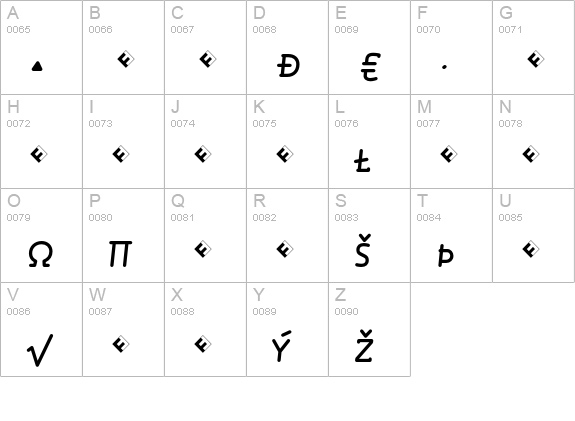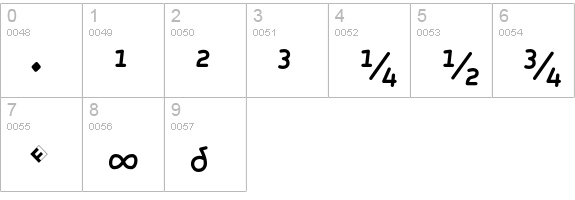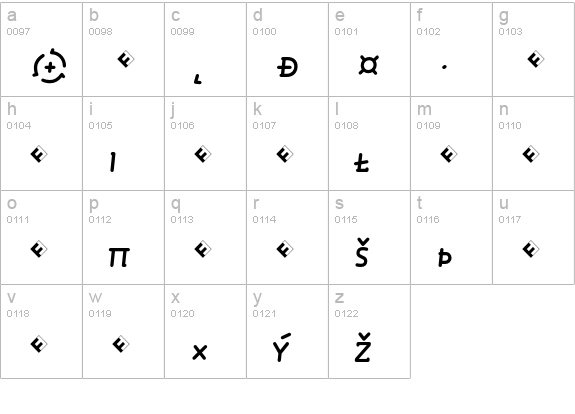
Roice-MediumItalicSCExpert is a sophisticated and elegant font that exudes a sense of refinement and professionalism. Its slender and flowing design adds a touch of class to any project, making it ideal for use in branding, editorials, and luxury products. The italic style of this font adds a dynamic and modern flair, perfect for conveying a sense of creativity and innovation. What sets Roice-MediumItalicSCExpert apart is not just its aesthetic appeal, but also its versatility and readability. Whether used for headings, body text, or captions, this font maintains its legibility and charm across various applications. Its expertly crafted design ensures a seamless and polished look in any context. Best of all, Roice-MediumItalicSCExpert is available for free download at FontsMarket.com. This means you can easily access this premium font without any cost, making it an attractive option for designers and creatives looking to elevate their projects without breaking the bank. Don't miss out on the opportunity to enhance your designs with the timeless elegance of Roice-MediumItalicSCExpert font.